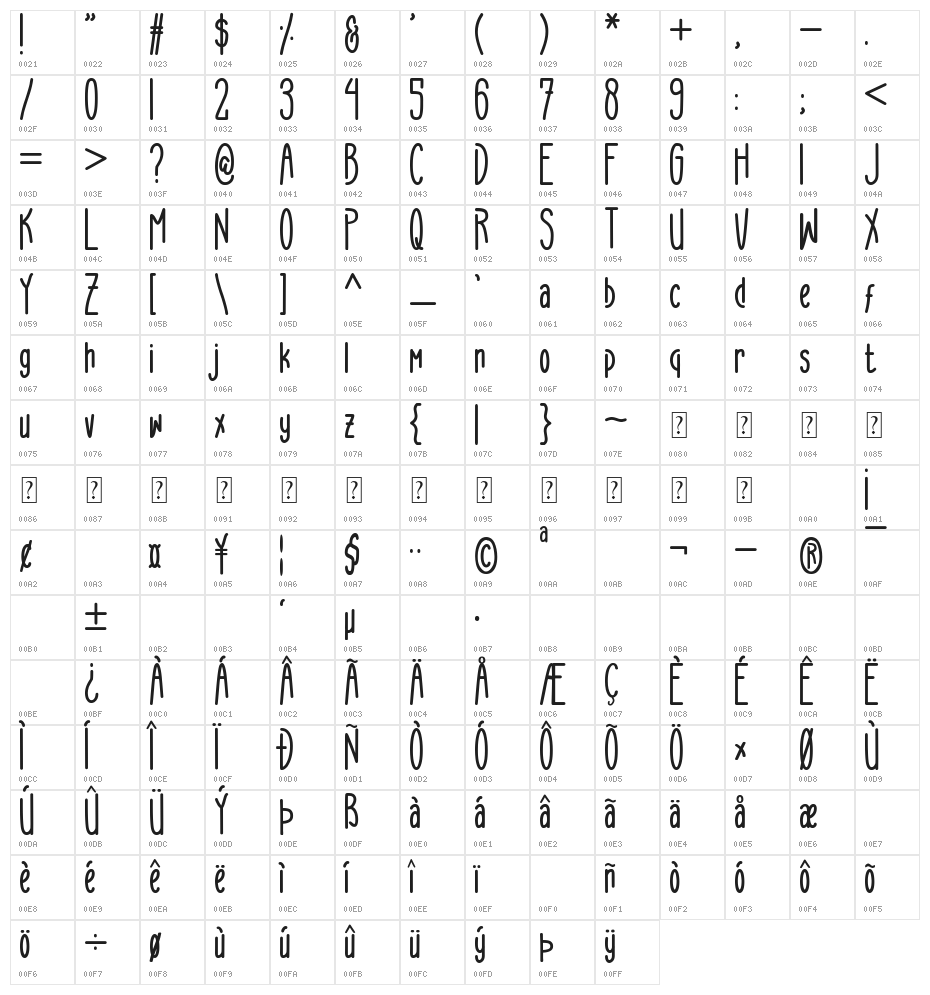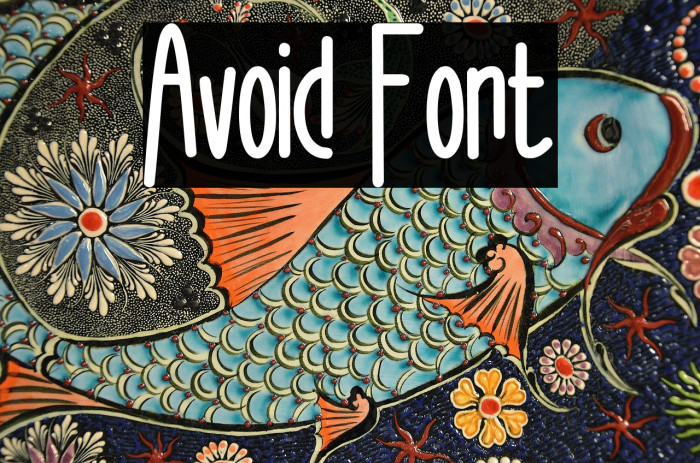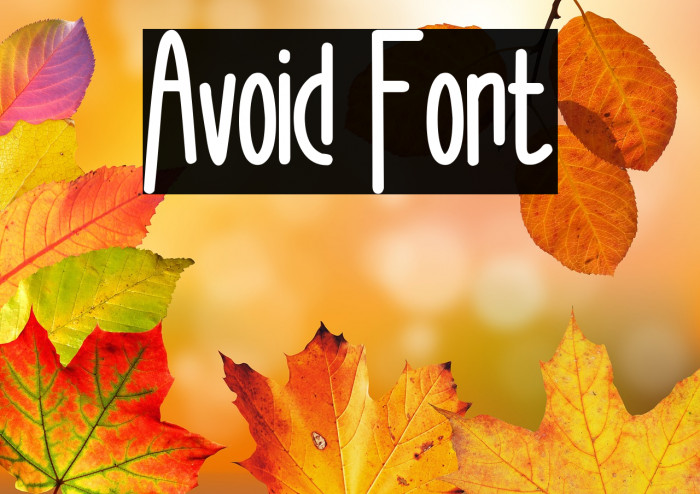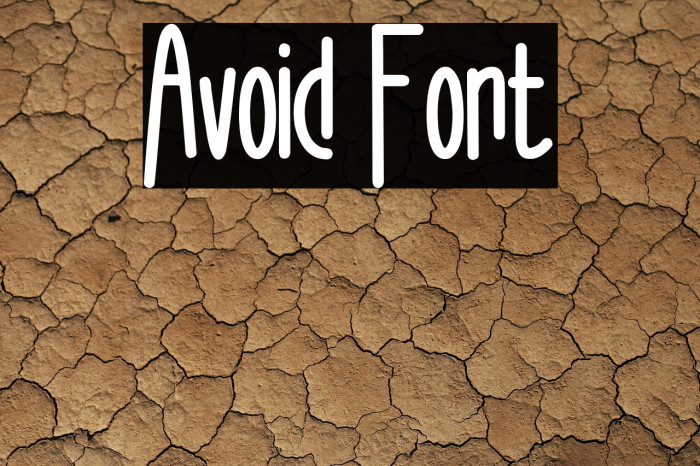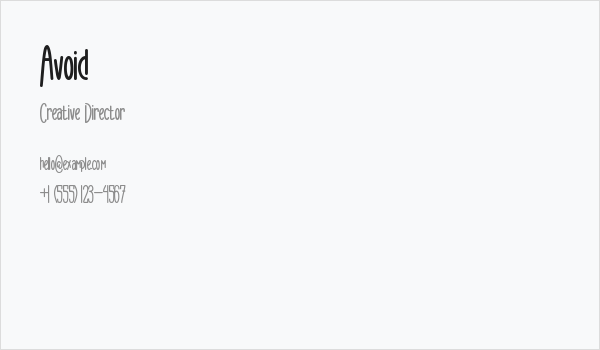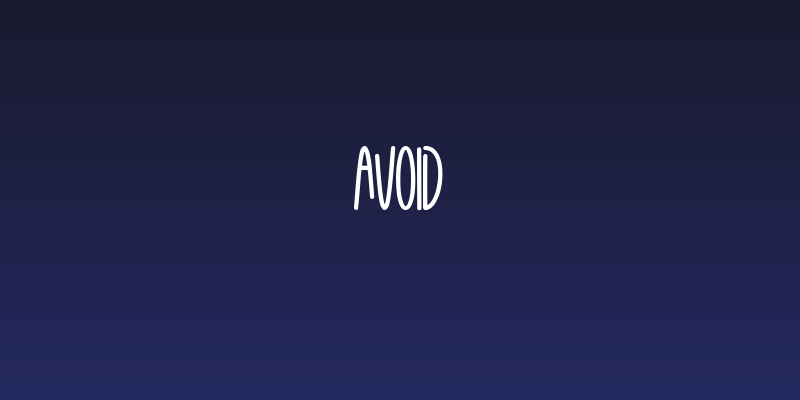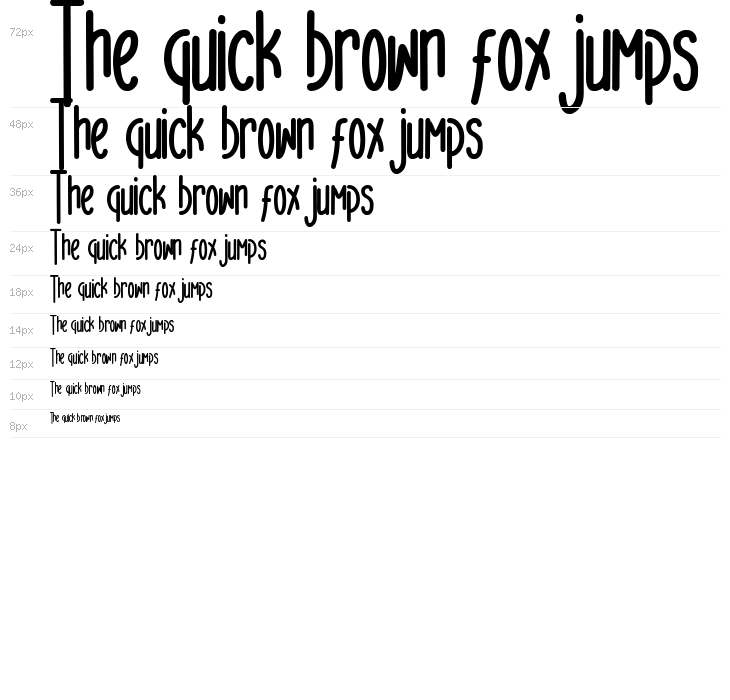
Avoid Font
Avoid Description
This font features a playful and quirky design with elongated and slightly irregular letterforms. The characters have a hand-drawn appearance, giving them a unique and artistic flair. The uppercase and lowercase letters maintain a consistent style, with rounded edges and varying stroke widths that add to the font's whimsical nature. The numbers and special characters are equally distinctive, fitting seamlessly into the overall design. This font's charm lies in its imperfect lines and creative expression, making it stand out in any project.